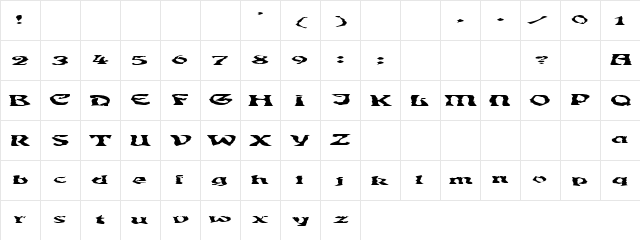
GhoulyBooly Regular Font Preview
GhoulyBooly Regular
Design Context for GhoulyBooly Typeface
GhoulyBooly is a composed and adaptable typeface that performs quietly and consistently across a wide range of design contexts.